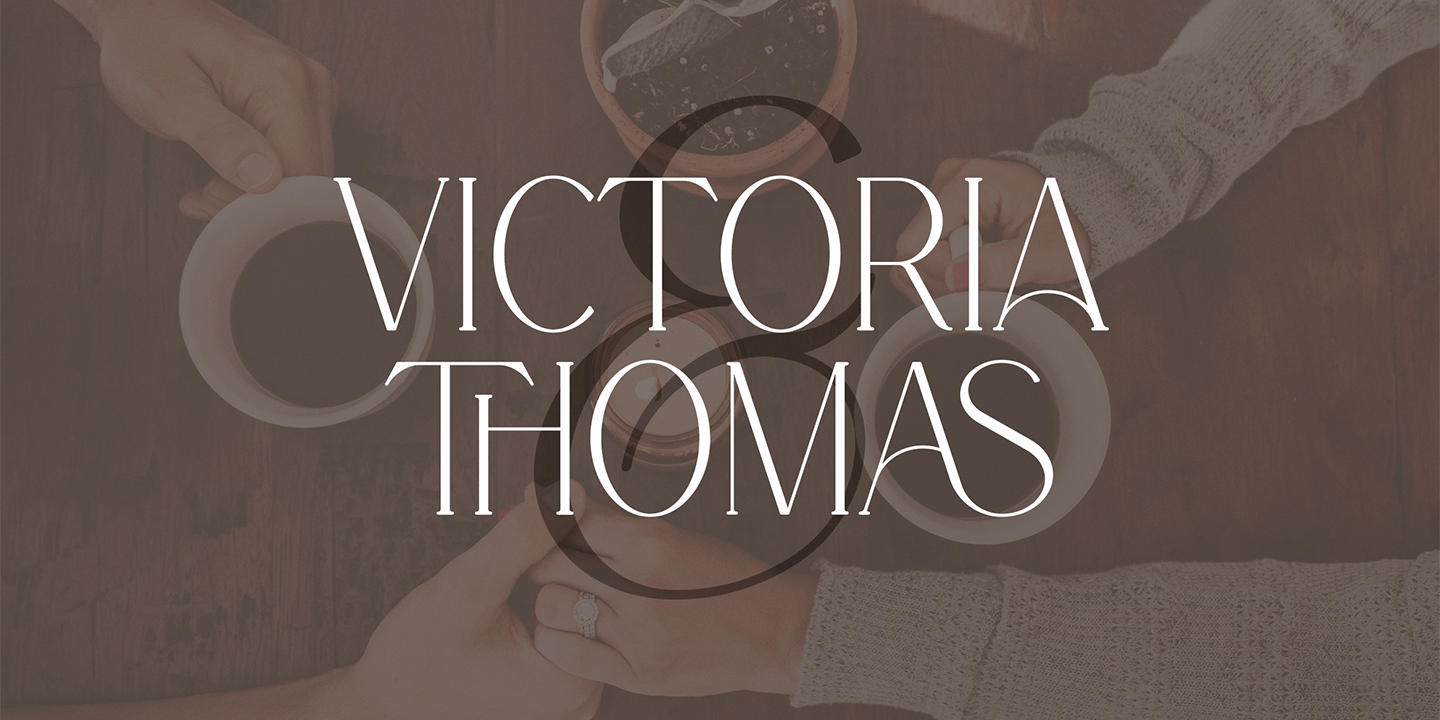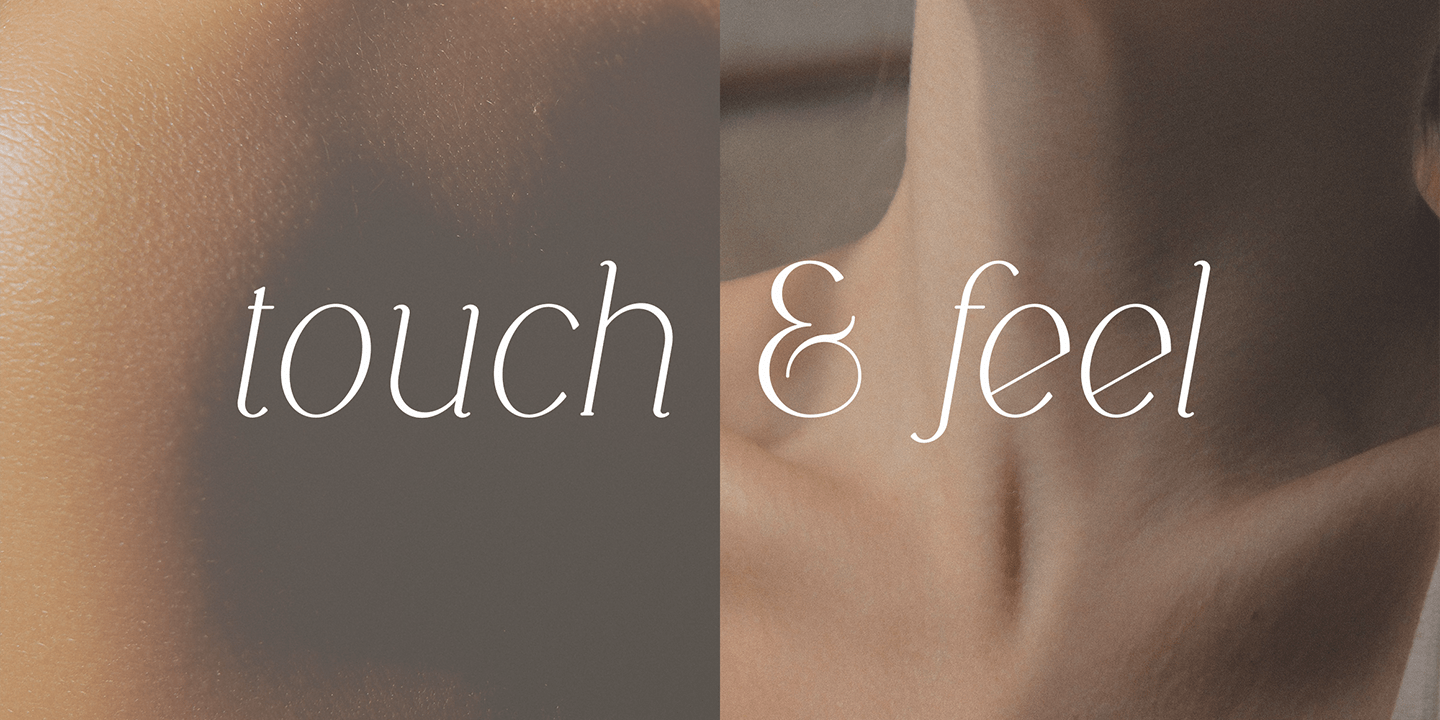
About Boketto
Introducing Boketto – Elegant typeface. 24 font styles included Boketto is elegant and versatile typeface loaded with 24 font styles (regular, styled and italics) 87 languages support, alternate and ligature glyphs to make you typography truly…